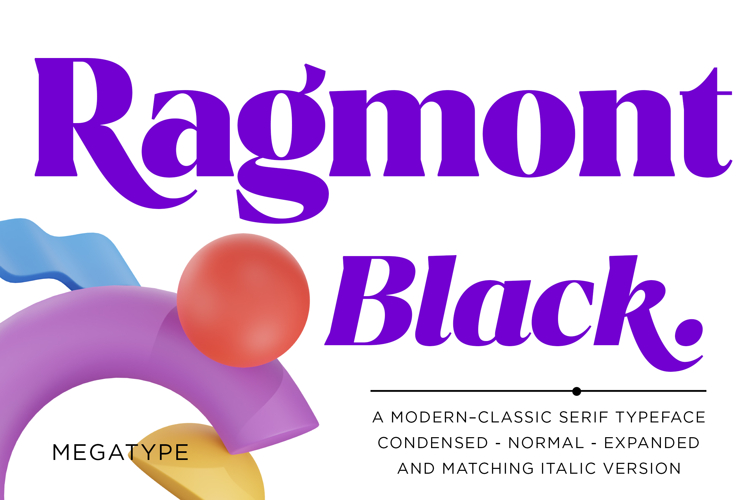
Ragmont Black
Ragmont Serif is a modern–classic serif typeface that blends the elegance of traditional letterforms with a contemporary touch. Its character is defined by smooth thick–thin contrast, refined serif curves, and well-balanced proportions that feel luxurious yet clean.
Ragmont delivers an editorial and premium impression, with expressive details that draw attention without sacrificing readability, whether used at large display sizes or medium text settings.
Ragmont Serif is well-suited for projects such as Branding & visual identity (logos, fashion brands, luxury brands), Editorial & publishing (magazines, books, feature articles), Posters, album covers, and creative promotional materials, Websites and landing pages with a premium feel, Product packaging (cosmetics, perfumes, lifestyle products) and many other design projects.